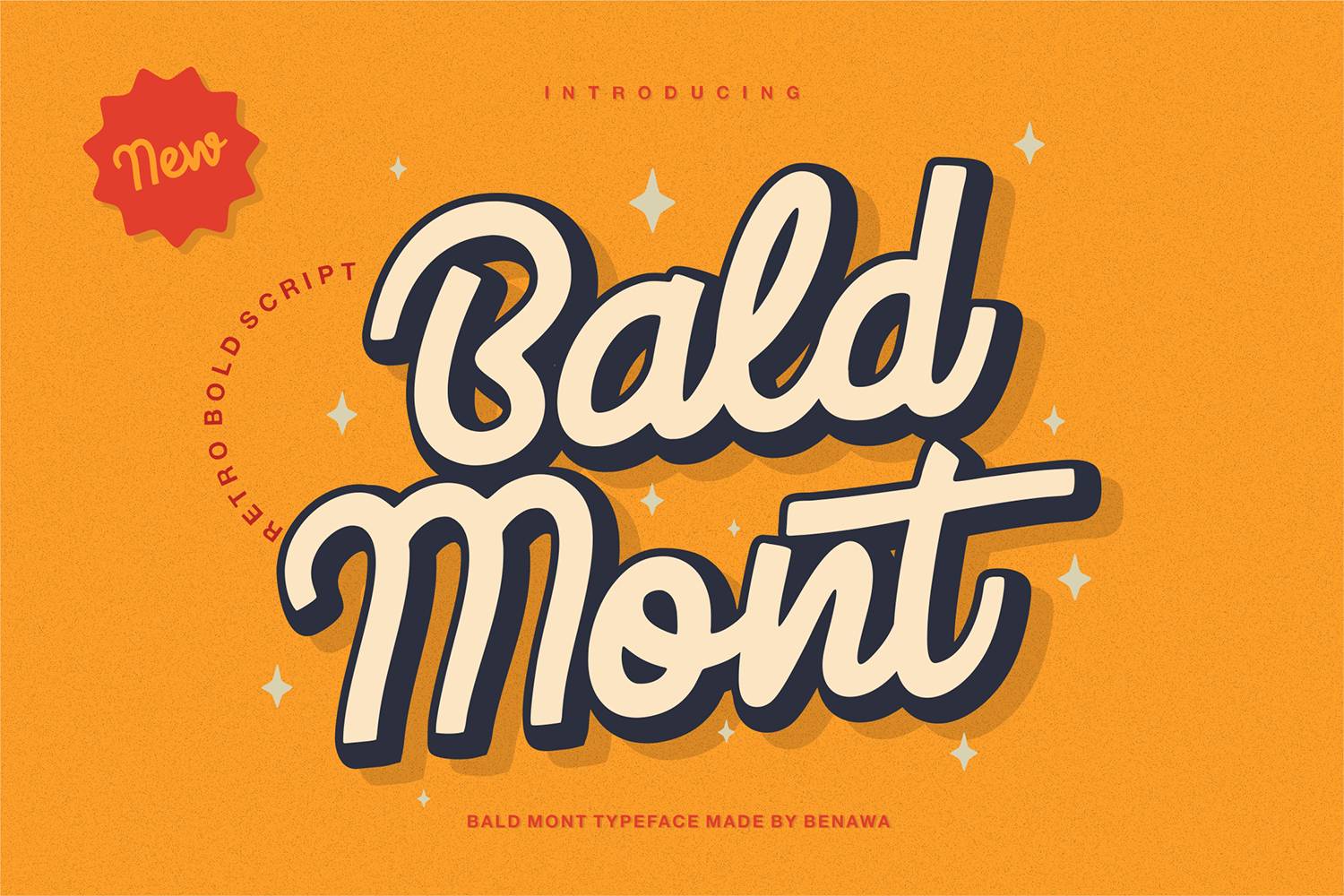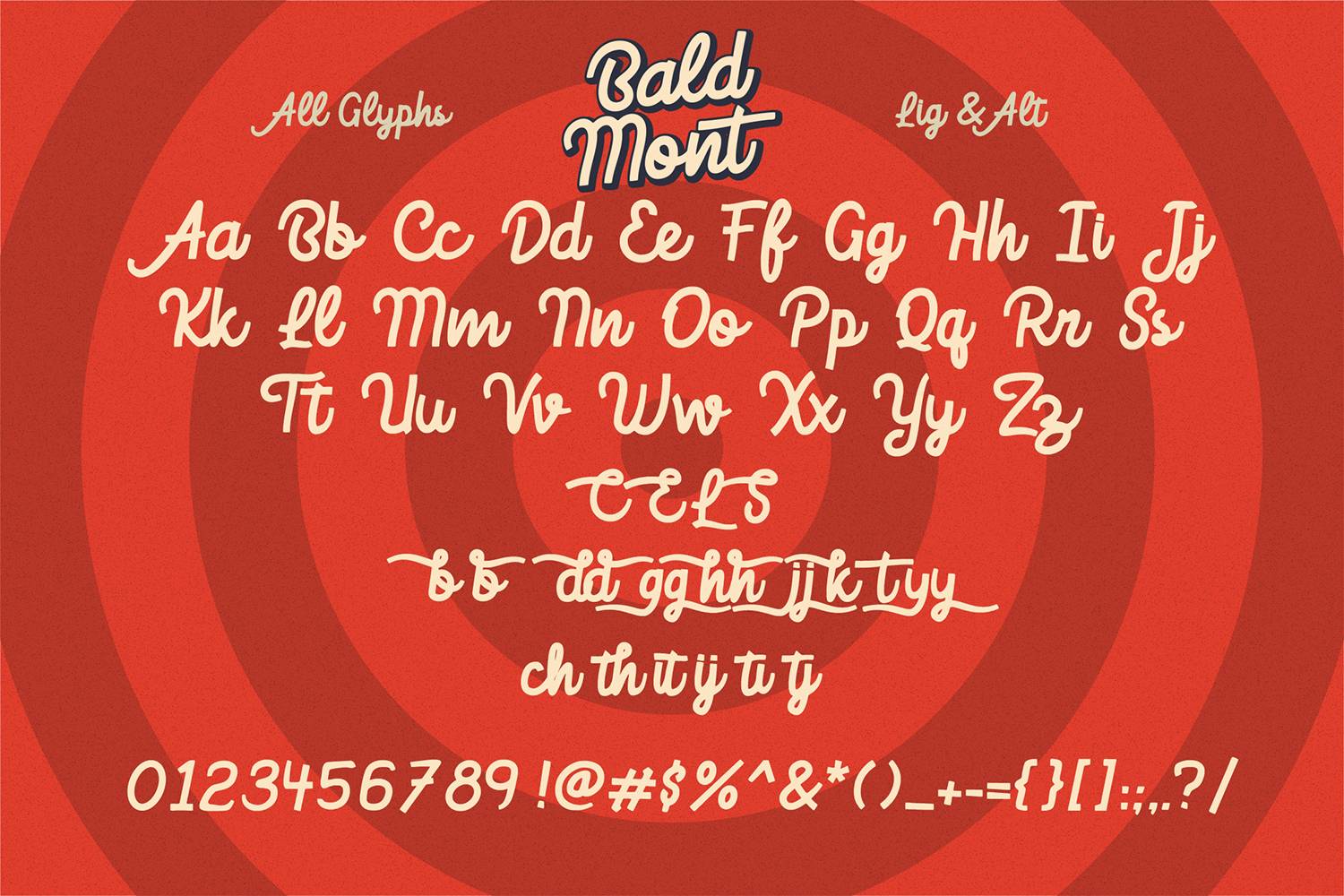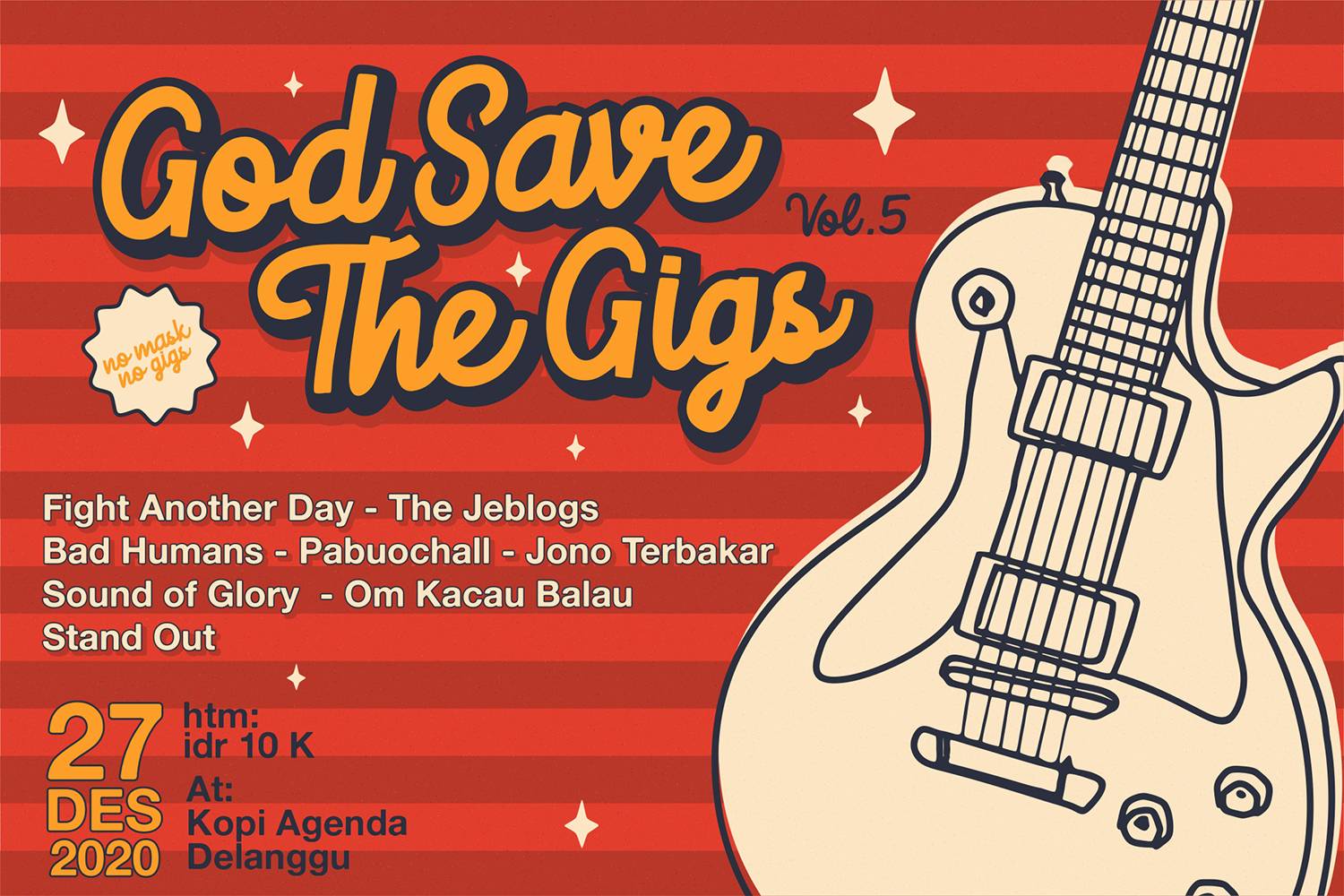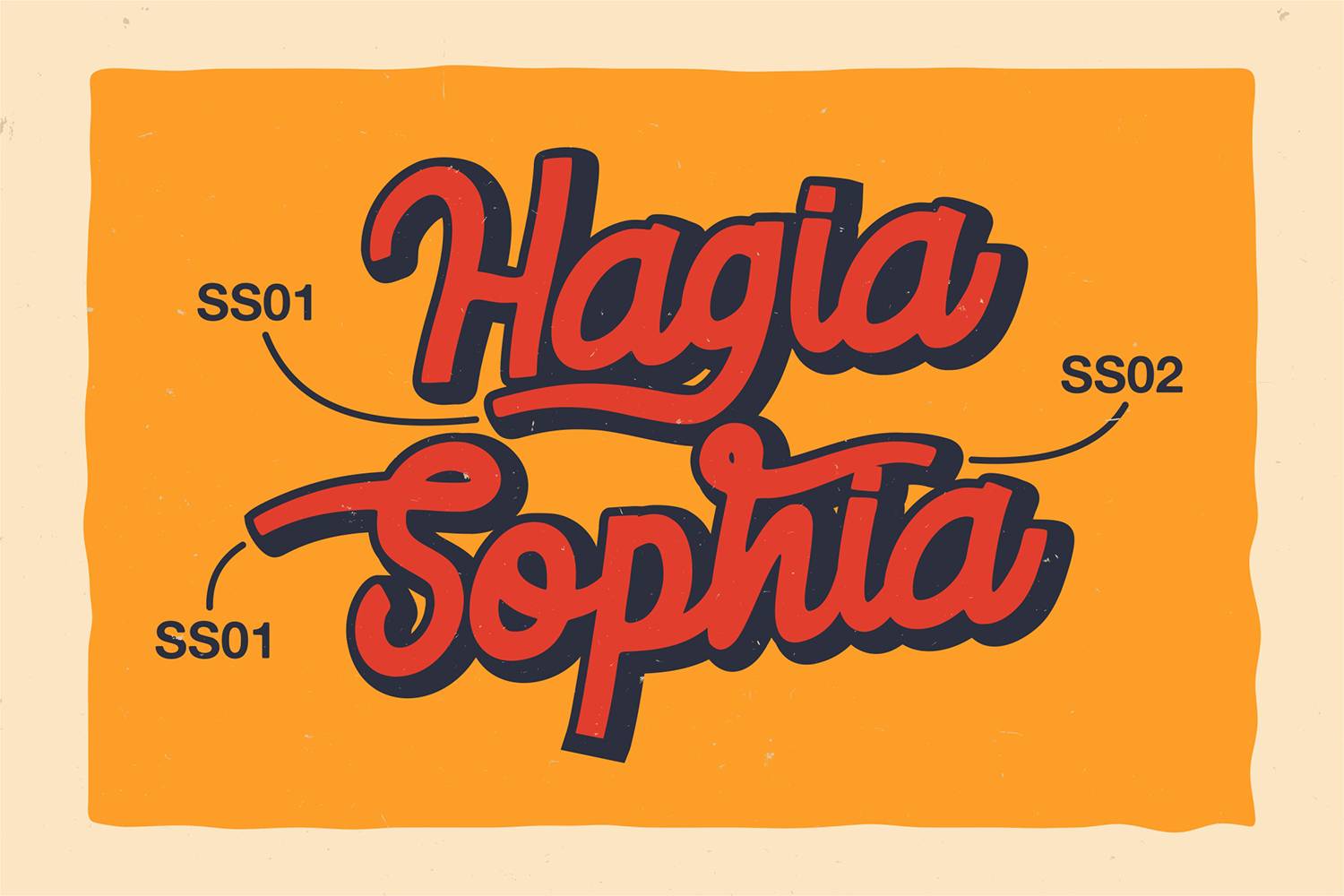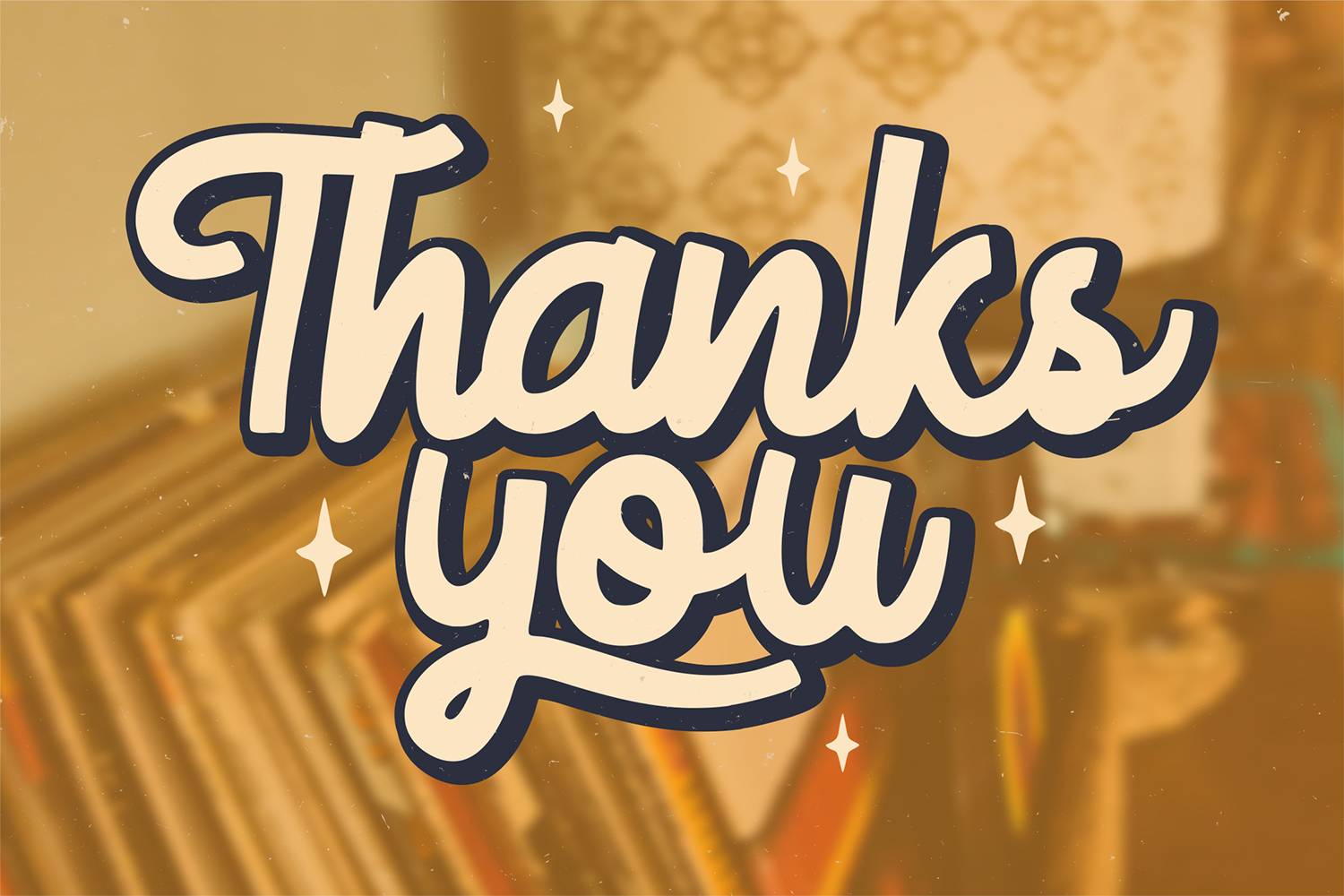
Bald Mont is a playful and charming script font with a casual, hand-drawn feel. Its smooth, moderately weighted strokes and rounded letterforms create an inviting and friendly personality, making it perfect for informal branding, invitations, and creative projects that seek a warm, approachable vibe. This font works well in logos and headlines where a touch of whimsy and personality is desired.
Bald Mont Font
About Bald Mont Font
| Font family | Bald Mont Font |